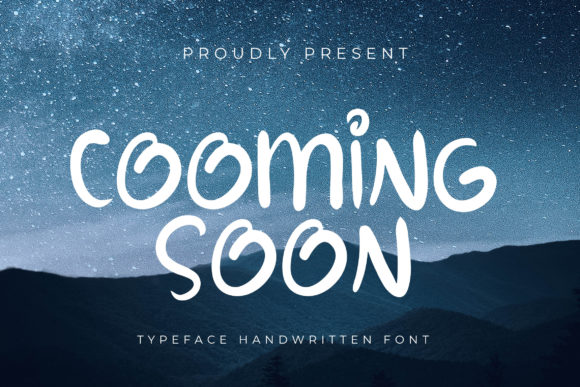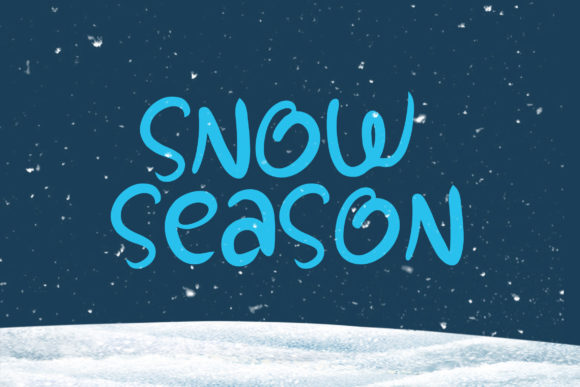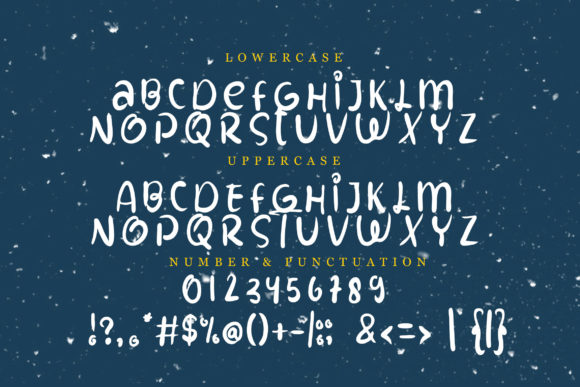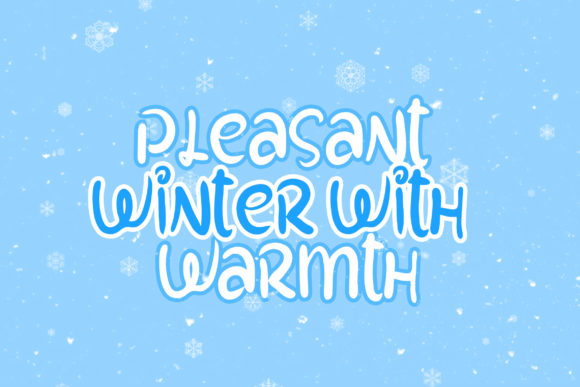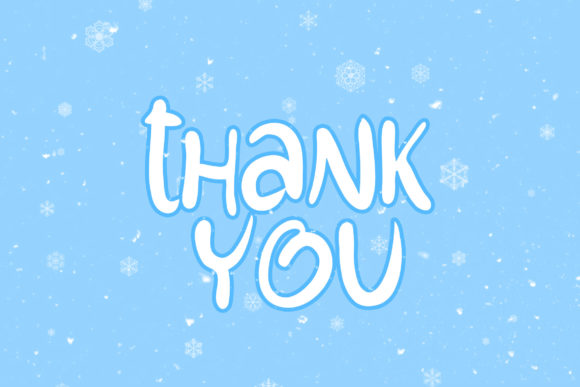
Cooming Soon Font
About Cooming Soon Font
Cooming Soon is a cute, paint brushed and neat handwritten font. Add this font to your most creative ideas, and notice how it makes them stand out!